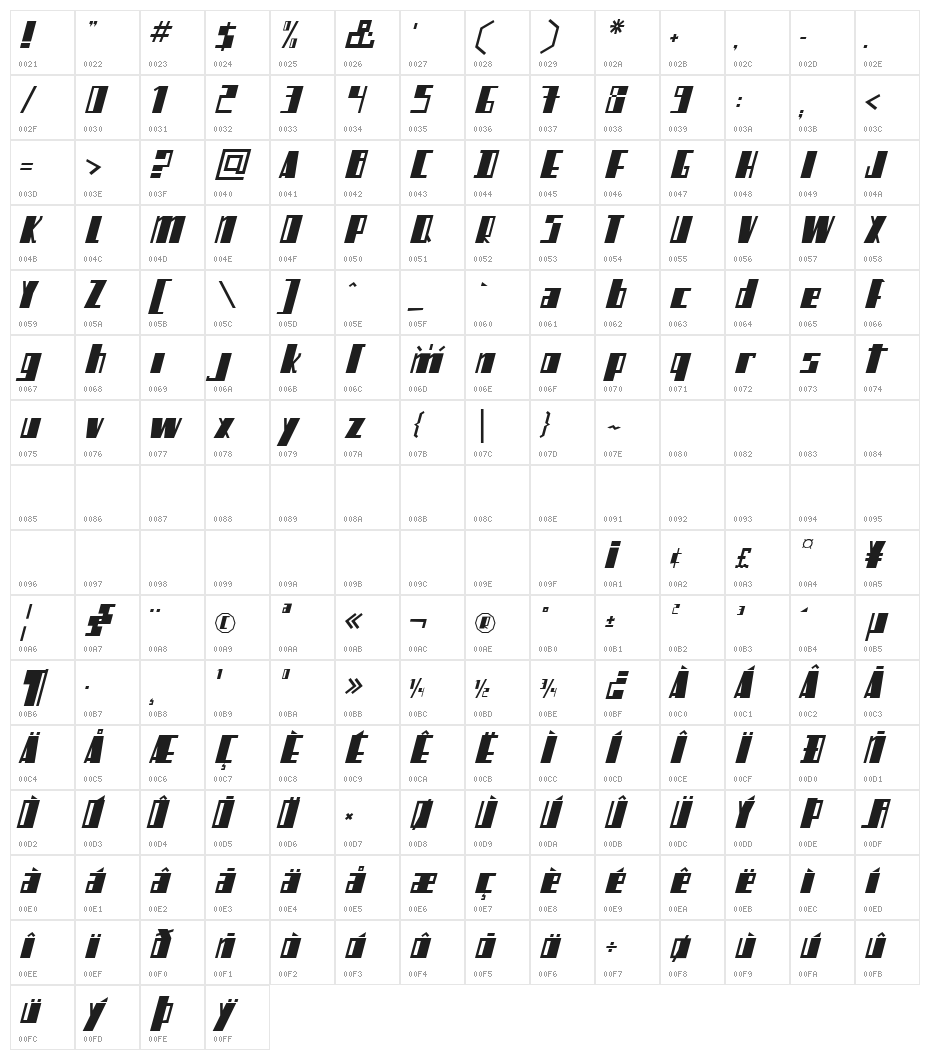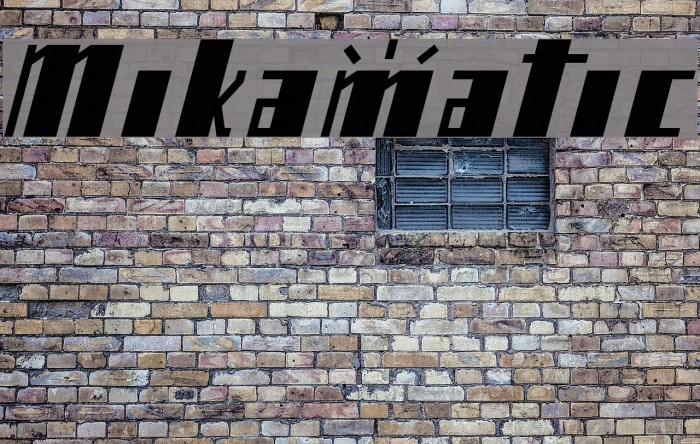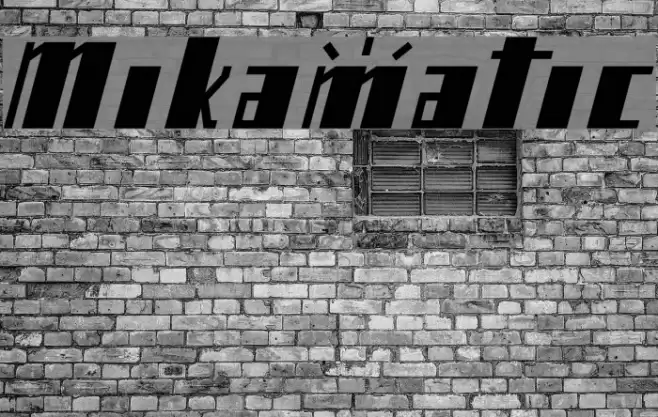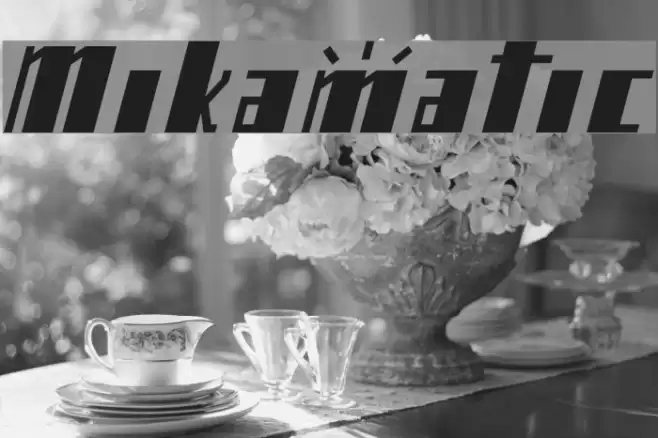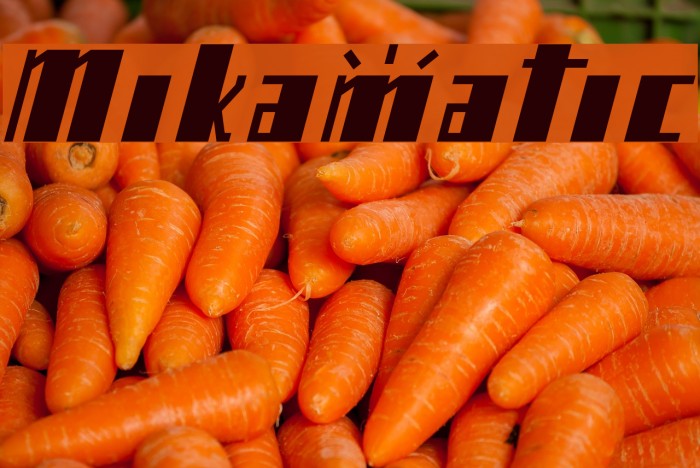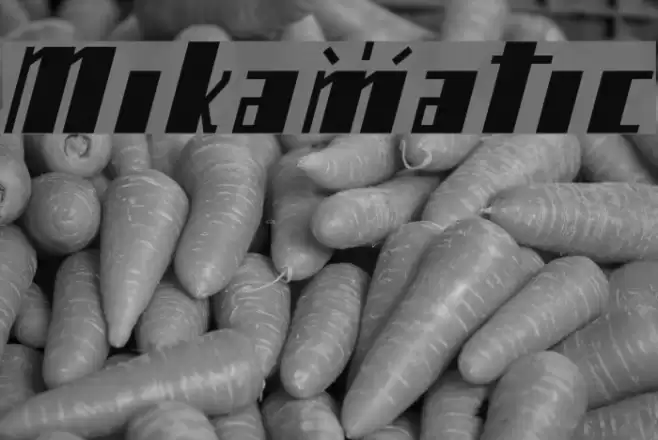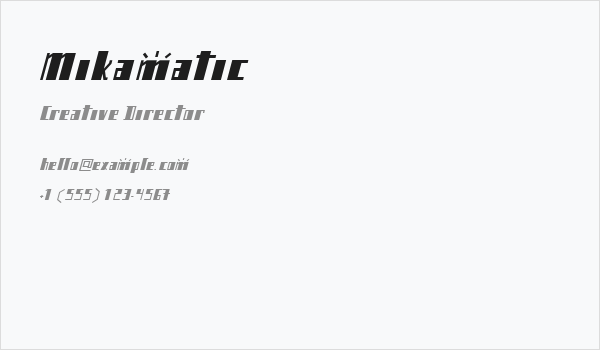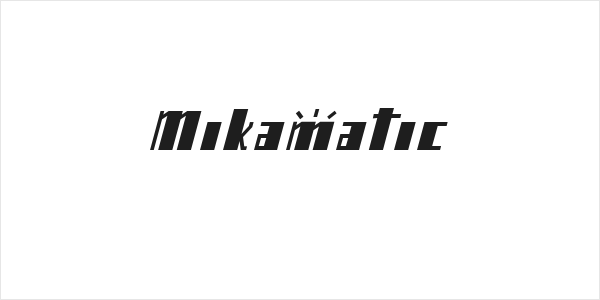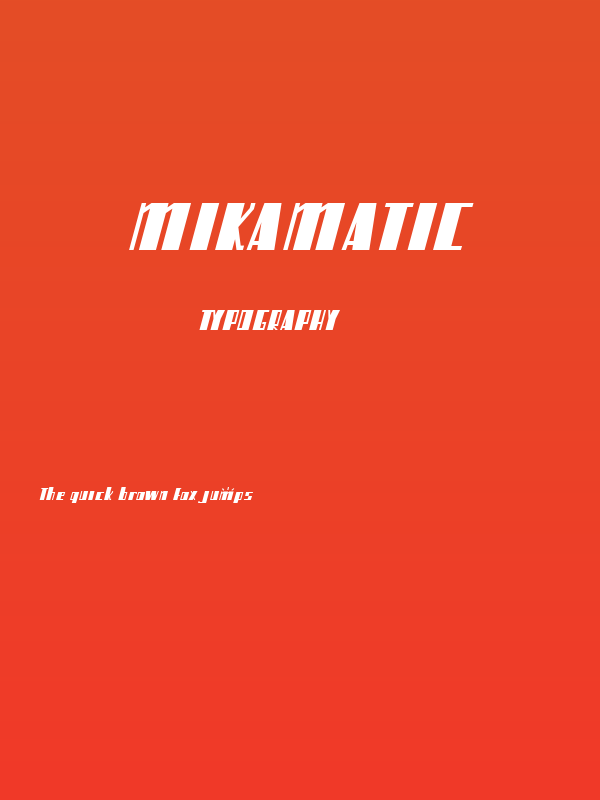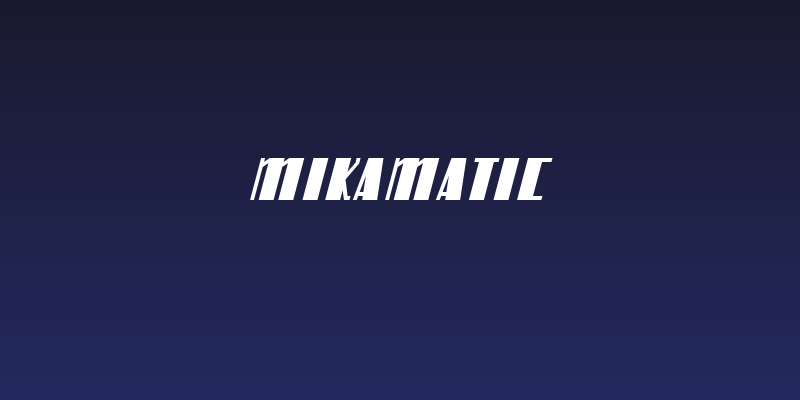
Mikamatic Font
Mikamatic Description
This font features a bold and dynamic design with a strong geometric influence. The characters are sharply angled, giving a sense of movement and speed. The uppercase letters are particularly striking, with a futuristic and edgy appearance. The lowercase letters maintain the same angular style, ensuring consistency throughout the typeface. Numbers and special characters are designed to match the bold and modern aesthetic, making them suitable for attention-grabbing designs. The overall look is sleek and contemporary, ideal for projects that require a strong visual impact.
| Proposed Projects | Ideal for sports branding, technology logos, video game titles, and dynamic poster designs. |